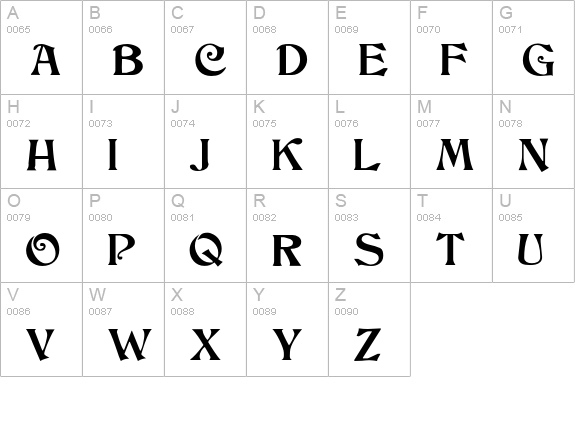
Beaumarchais font embodies elegance and sophistication, making it perfect for adding a touch of class to your designs. With its classic and timeless appearance, this font exudes charm and refinement. The sleek lines and flowing curves of Beaumarchais create a sense of fluidity and grace, making it a versatile choice for a wide range of projects. One of the best features of Beaumarchais font is that it is free to download at FontsMarket.com. This means that you can easily access this stunning typeface without any cost, making it an ideal option for both personal and commercial use. Whether you're designing invitations, branding materials, or website content, Beaumarchais font will bring a touch of sophistication to your projects. Download this exceptional font today and elevate your designs with its timeless beauty.